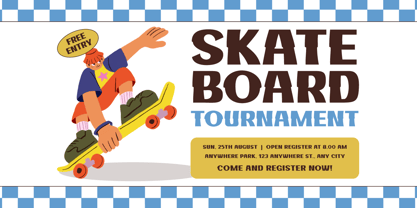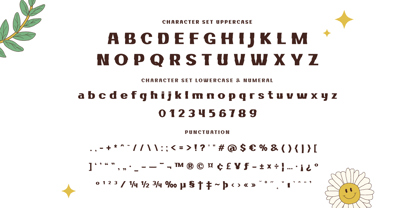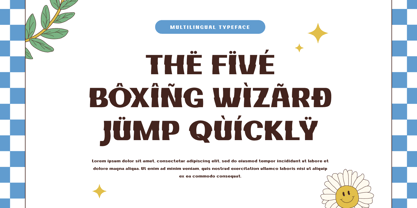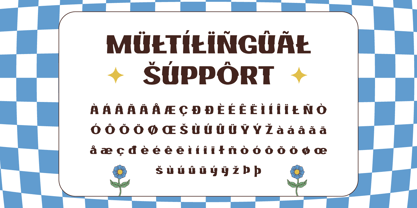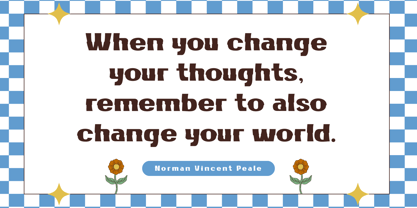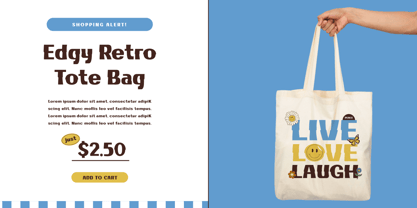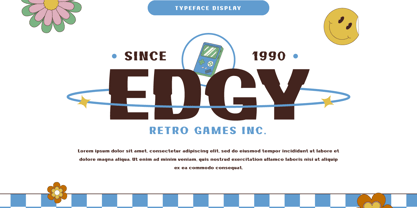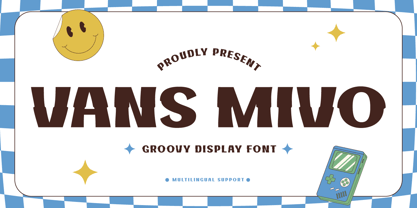
Vans Mivo is a font that brings the fun. This groovy display font is all about creating a sense of enjoyment and excitement. Its unique, playful characters make it perfect for creating eye-catching headlines and logos that bring a smile to your audience’s face. With Vans Mivo, your designs won’t just be fun, they’ll be unforgettable.
- Fonts include Multilingual: Support for 85 languages.
Afrikaans, Albanian, Asu, Basque, Bemba, Bena, Breton, Catalan, Chiga, Cornish, Croatian, Czech, Danish, Dutch, Embu, English, Esperanto, Estonian, Filipino, Finnish, French, Friulian, Galician, Gusii, Hungarian, Indonesian, Irish, Italian, Kabuverdianu, Kalenjin, Kamba, Kikuyu, Kinyarwanda, Latvian, Lithuanian, Lower, Sorbian, Luo, Luxembourgish, Luyia, Machame, Makhuwa-Meetto, Makonde, Malagasy, Maltese, Manx, Meru, Morisyen, North, Ndebele, Norwegian Bokmål, Norwegian Nynorsk, Nyankole, Oromo, Polish, Portuguese, Quechua, Romanian, Romansh, Rombo, Rundi, Rwa, Samburu, Sango, Sangu, Scottish, Gaelic, Sena, Serbian, Shambala, Shona, Slovak, Slovenian, Soga, Somali, Spanish, Swahili, Swedish, Swiss German, Taita, Teso, Turkish, Upper Sorbian, Uzbek (Latin), Volapük, Vunjo, Walser, Zulu.